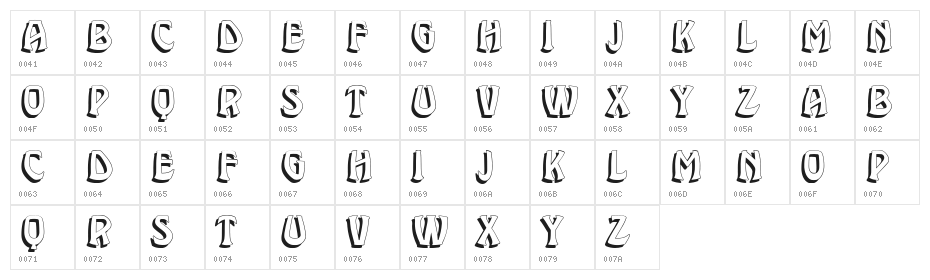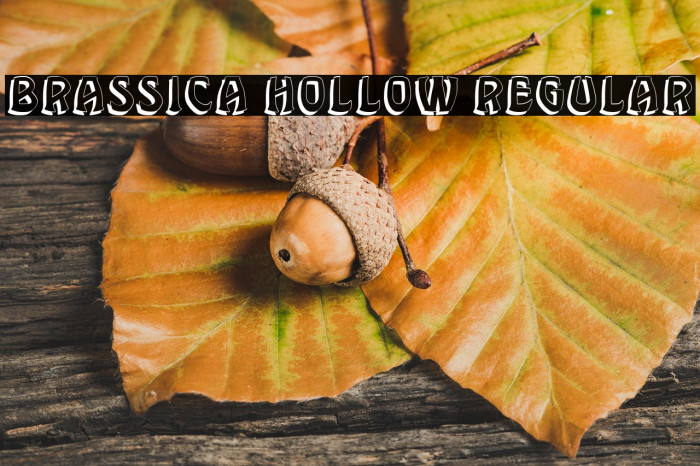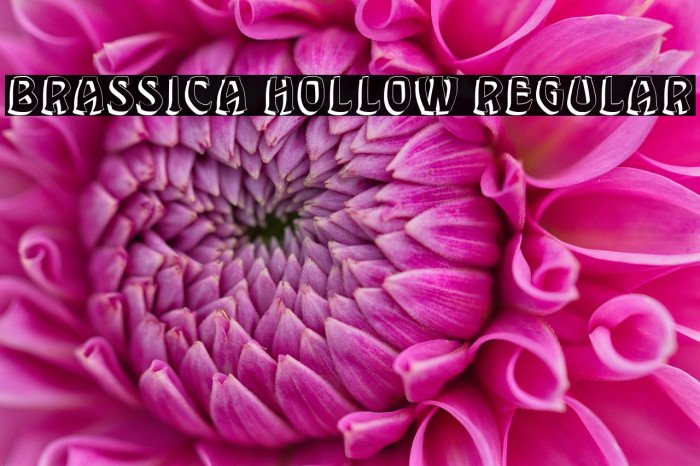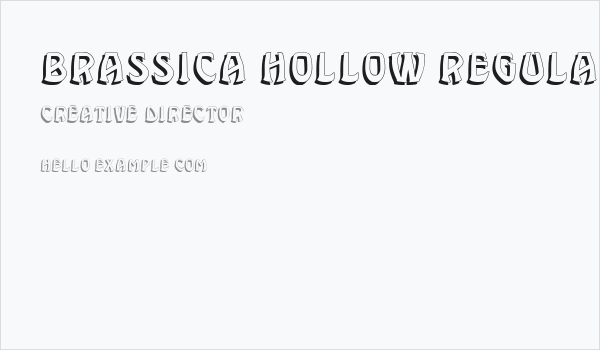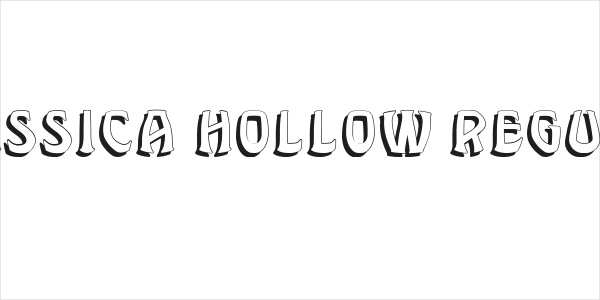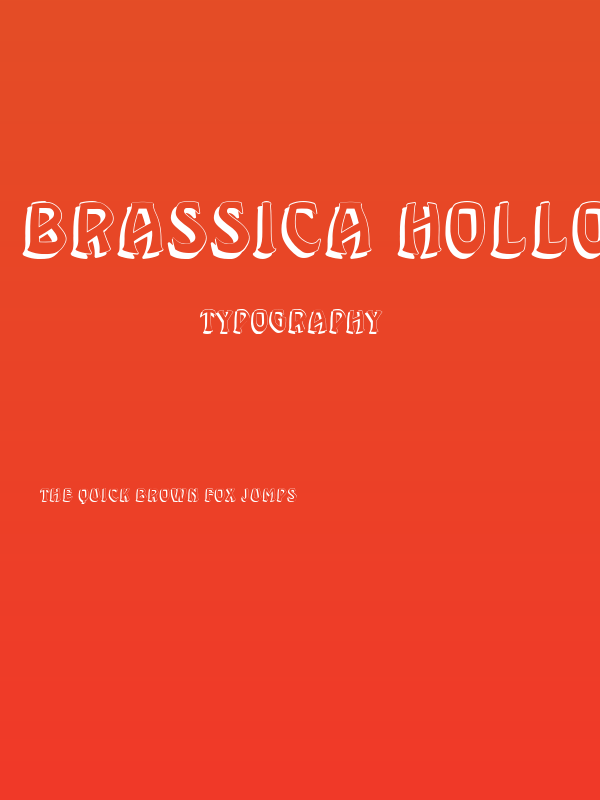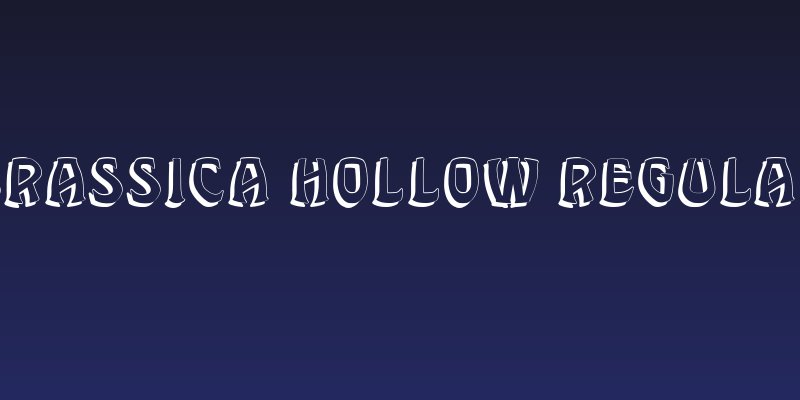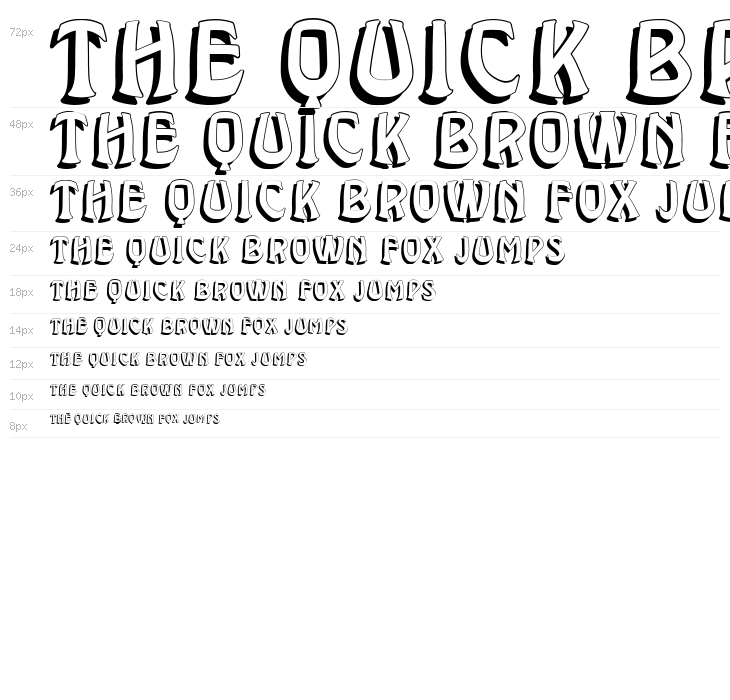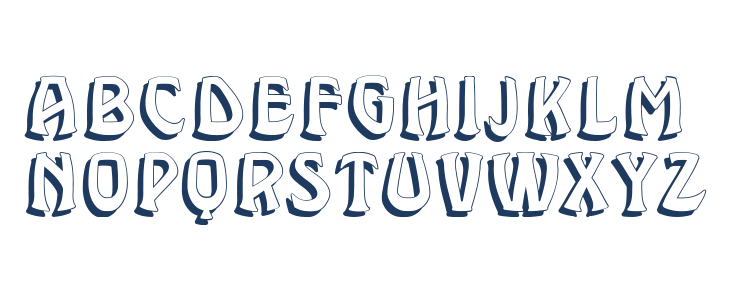
Brassica Hollow Regular Font
Brassica Hollow Regular Description
This font features a bold, hollow design with a playful and decorative style. The characters are outlined with a thick stroke, creating a three-dimensional effect that adds depth and interest. The uppercase letters are prominently displayed, showcasing a unique blend of curves and angles that give the font a dynamic appearance. The hollow interior of each letter allows for creative use of color and background, making it ideal for eye-catching designs. The font maintains a consistent width and spacing, ensuring readability while still offering a distinctive look.
| Proposed Projects | Ideal for posters, headlines, logos, and any design requiring a standout, playful font. |